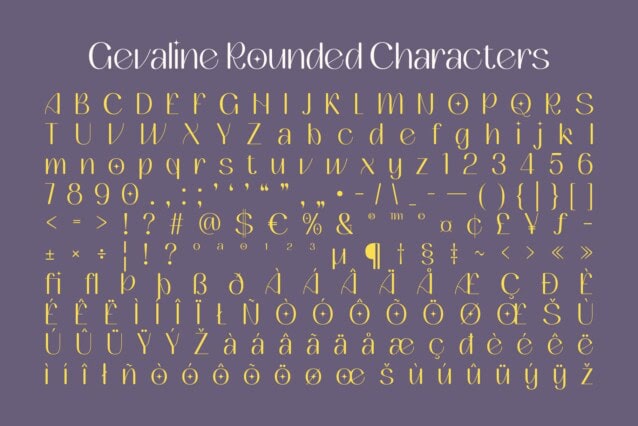
Gevaline Rounded Font
Gevaline Rounded Font is a modern sans-serif font that combines sleek, slim lines with smooth, rounded corners to create a clean and dynamic look. Its thin strokes lend a sense of lightness and sophistication, while the rounded edges soften the overall design, resulting in a warm, approachable appearance. This unique combination makes Gevaline Rounded perfect for high-end, professional applications.